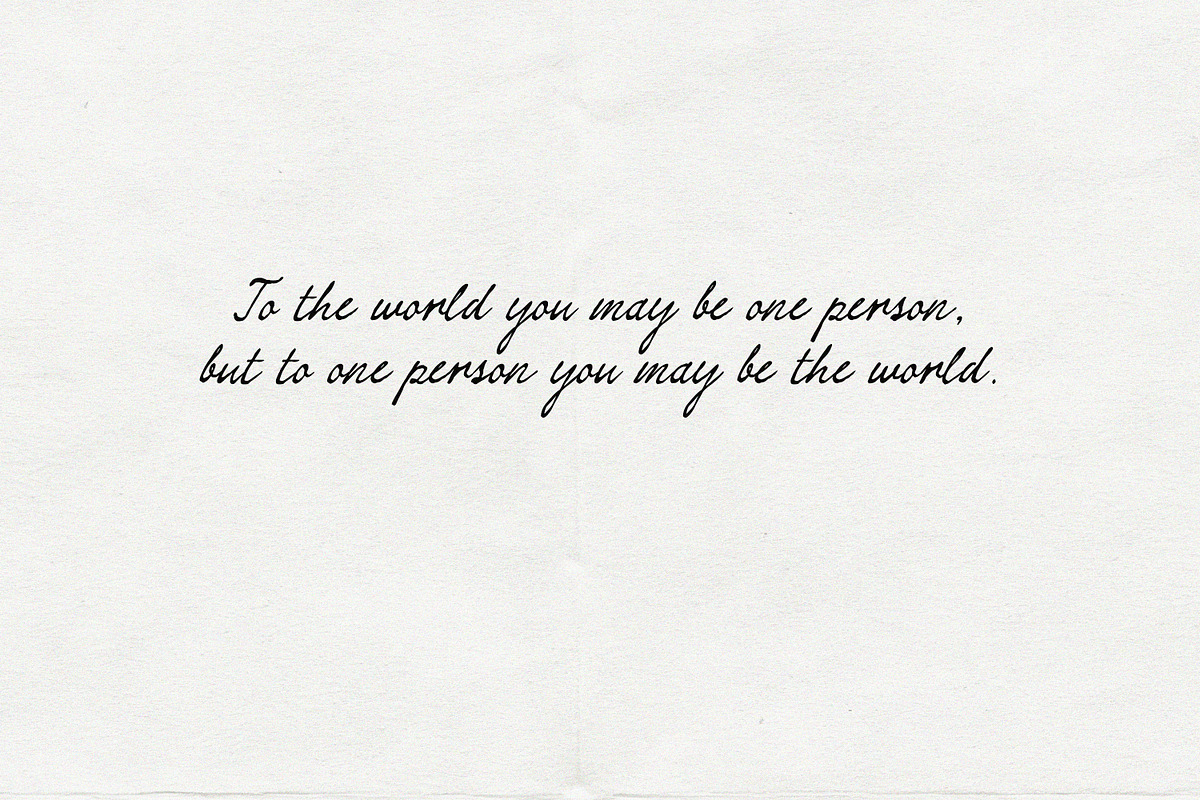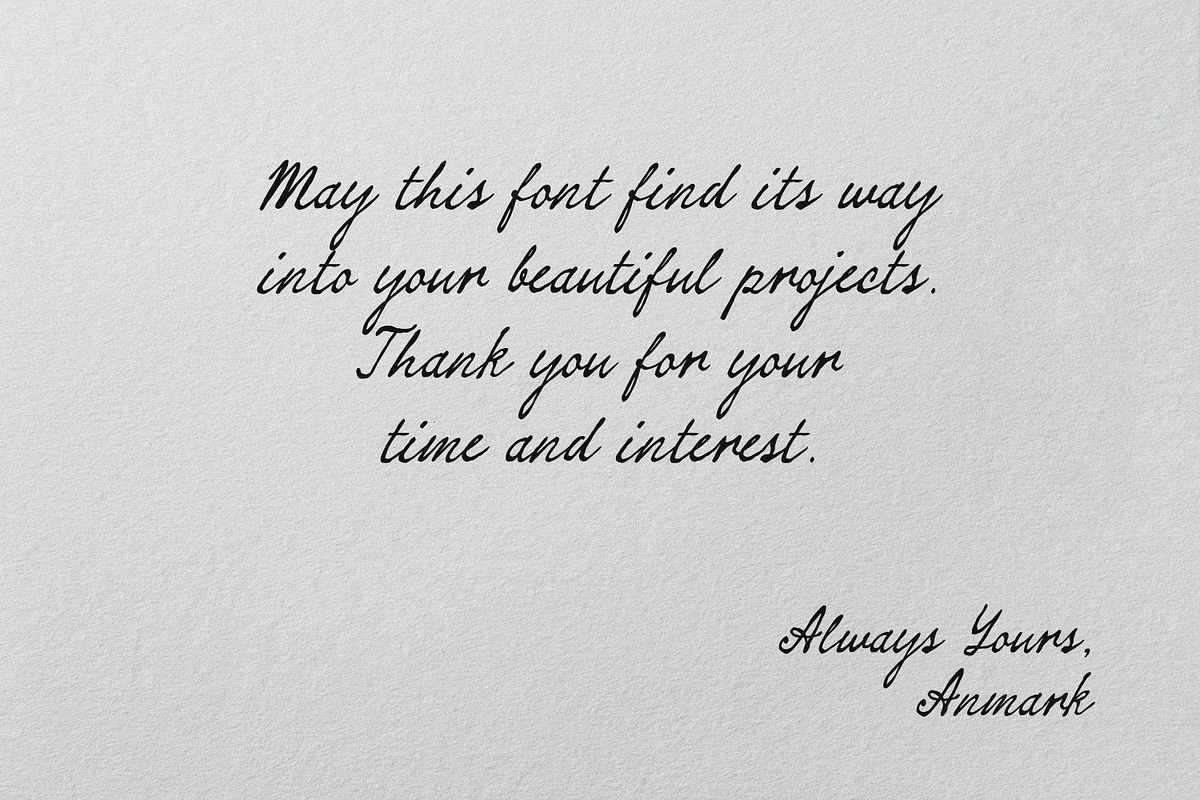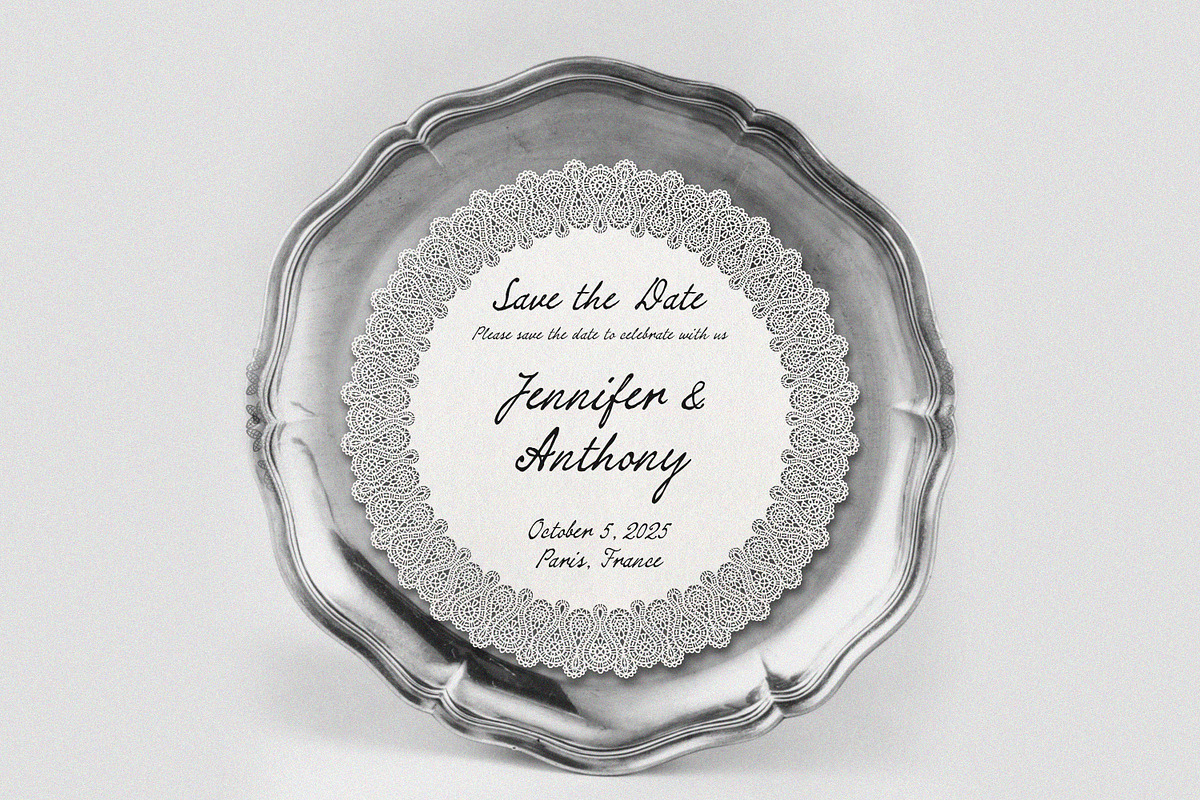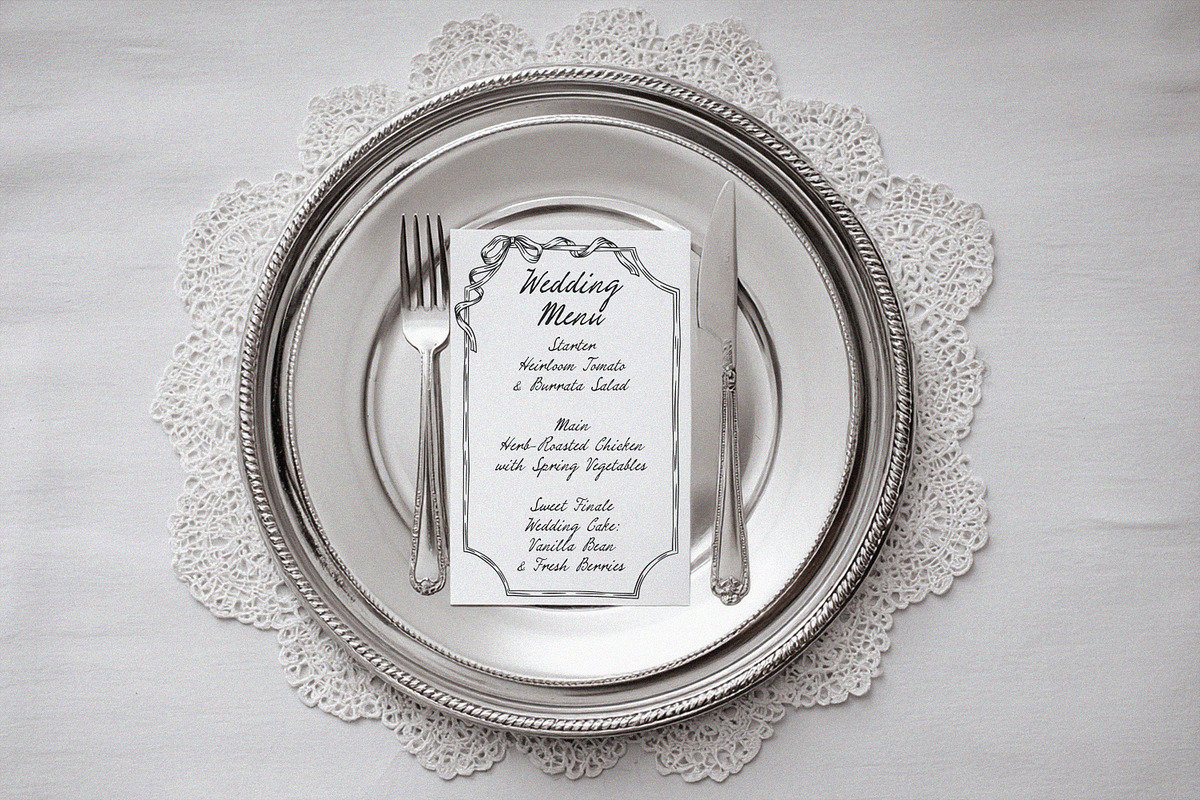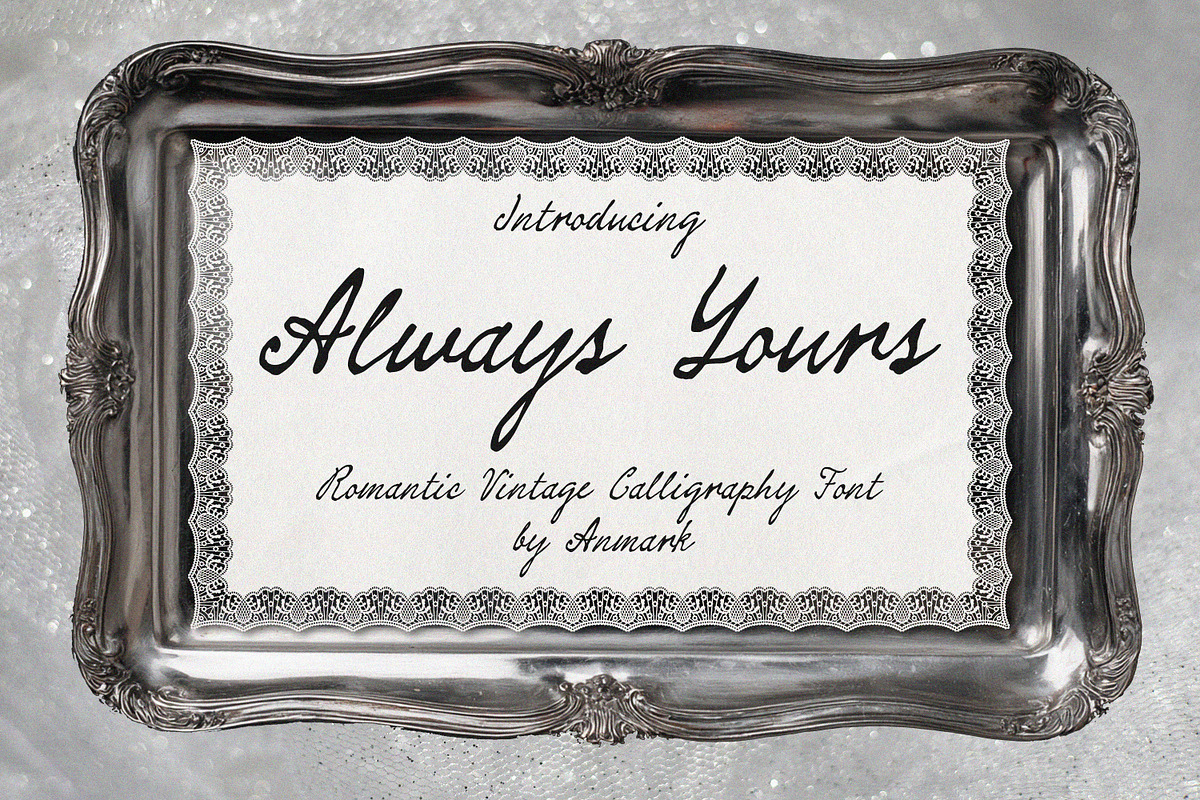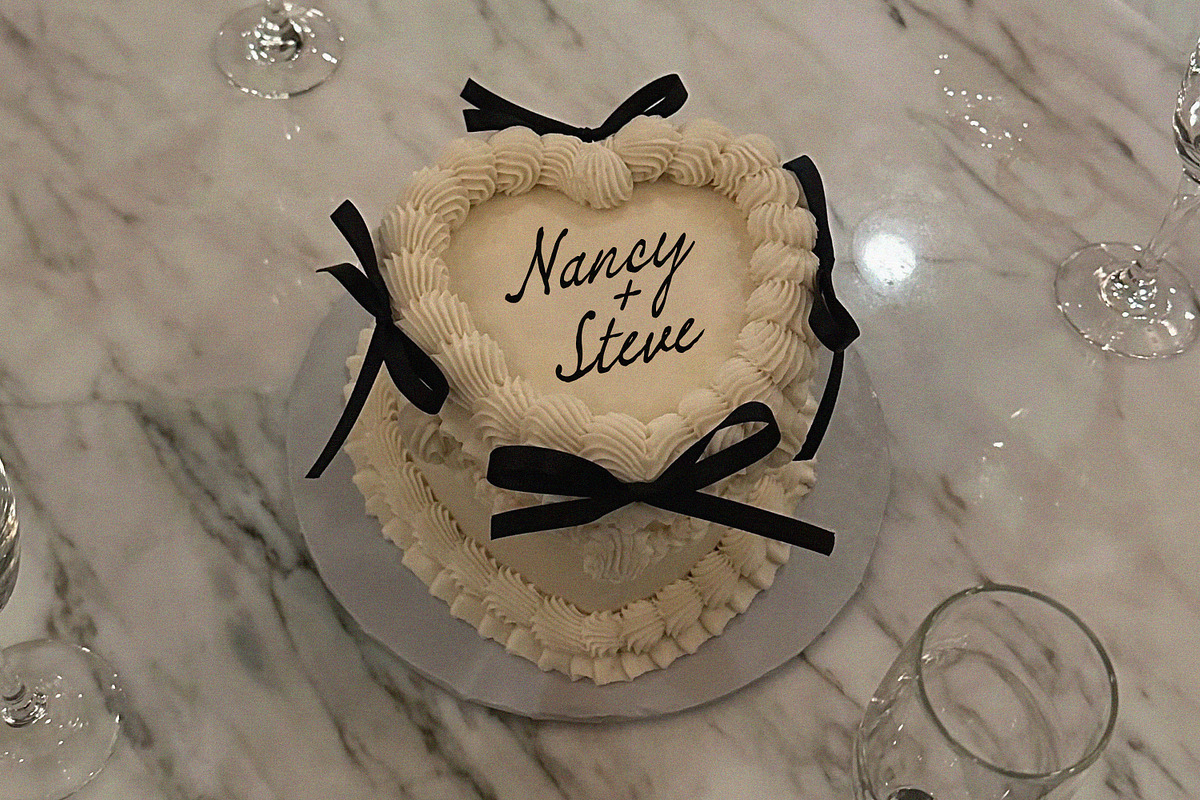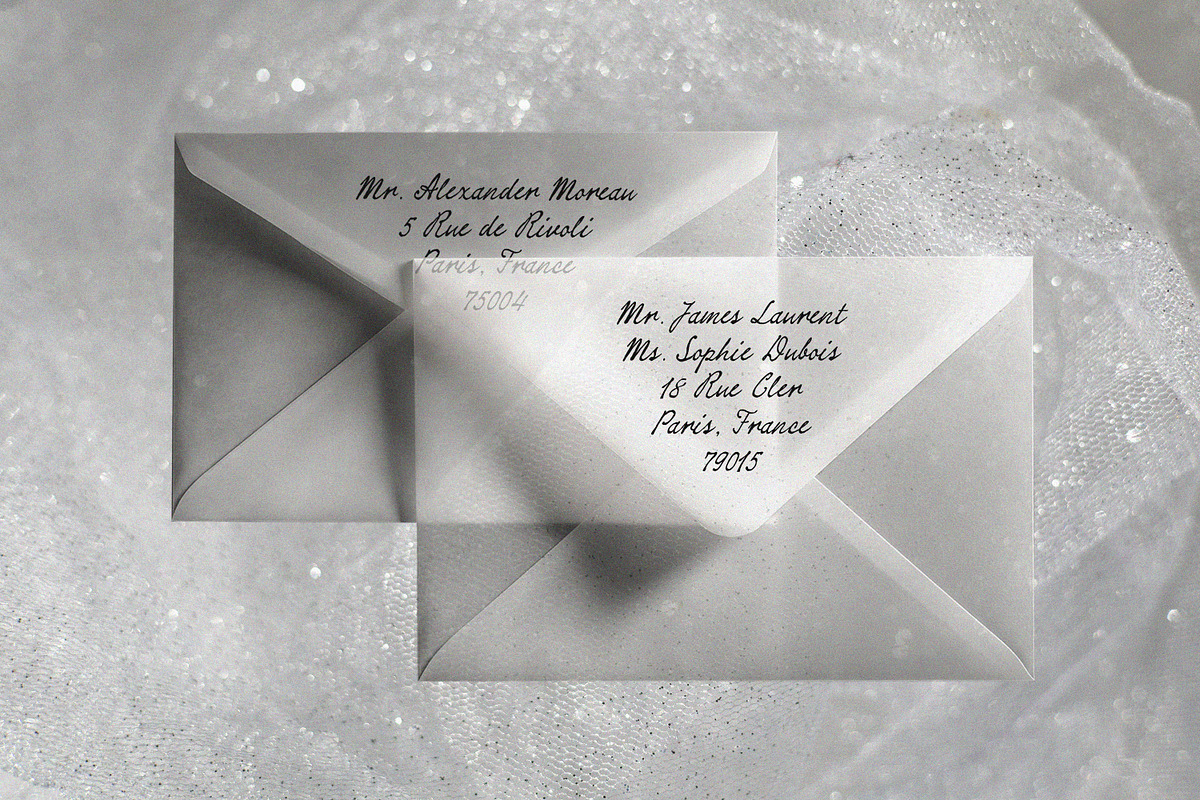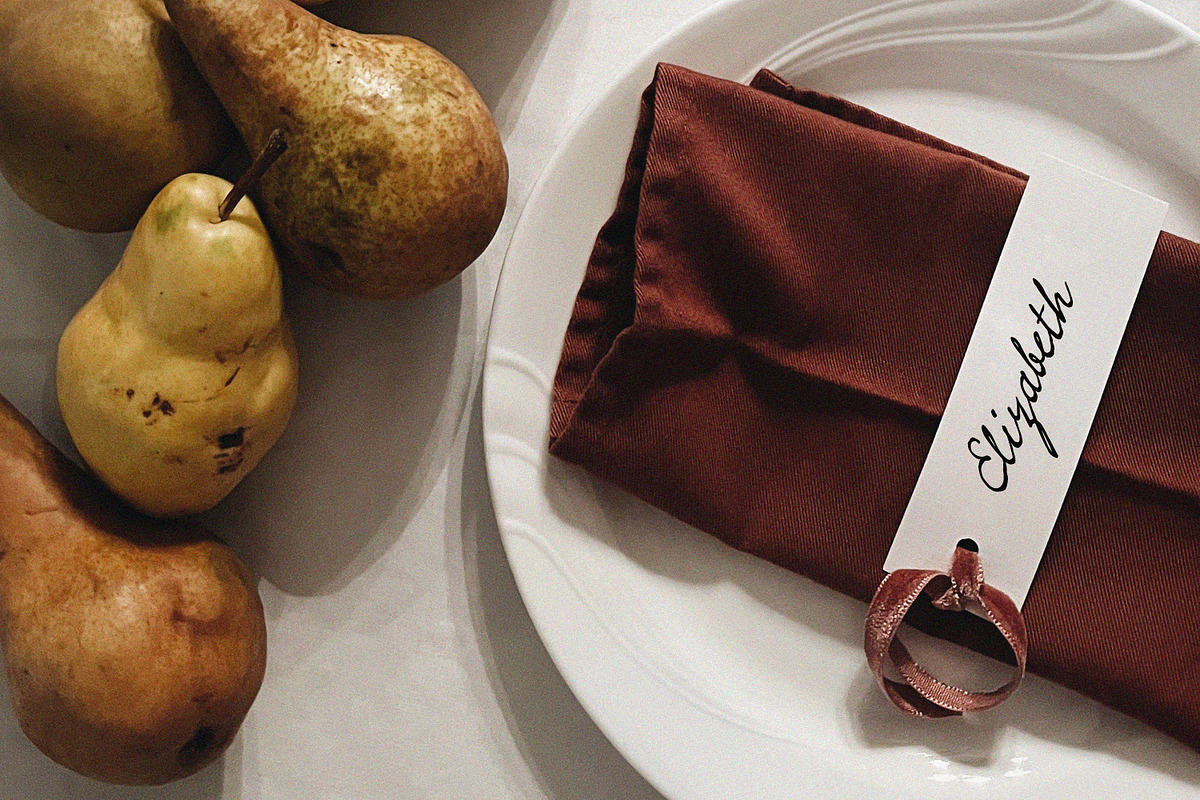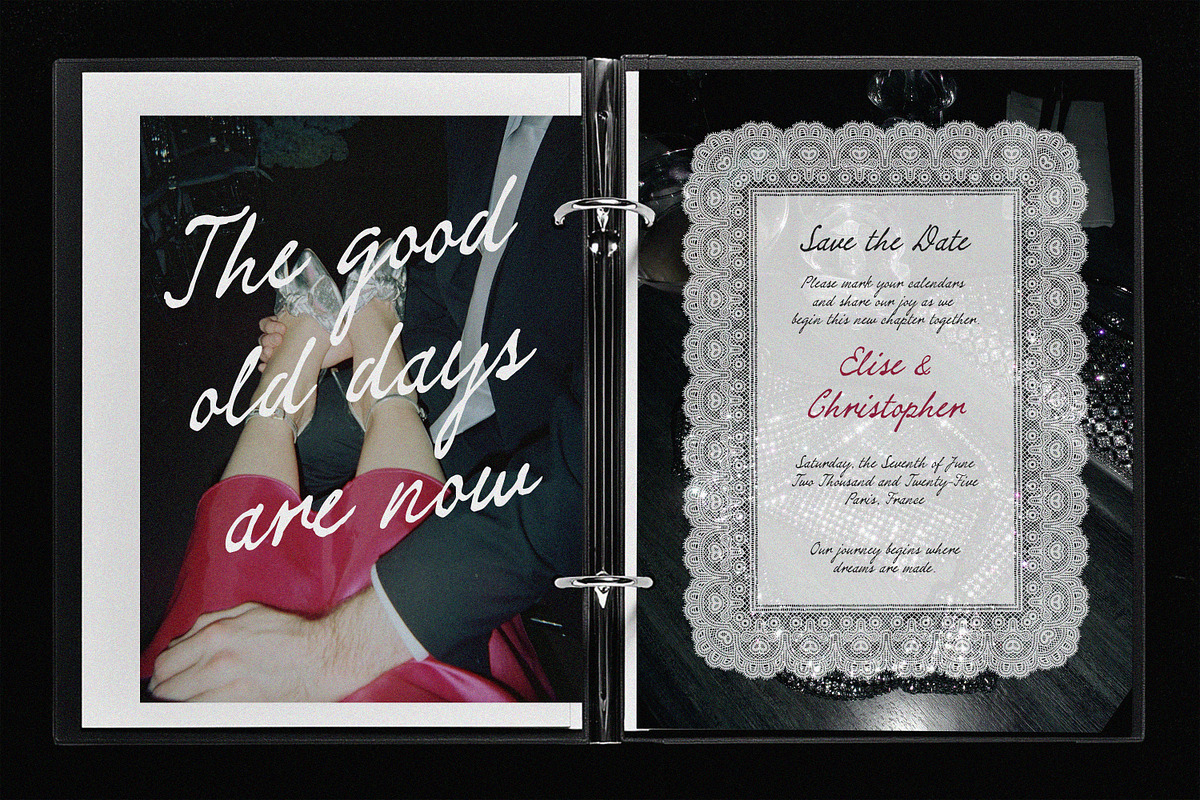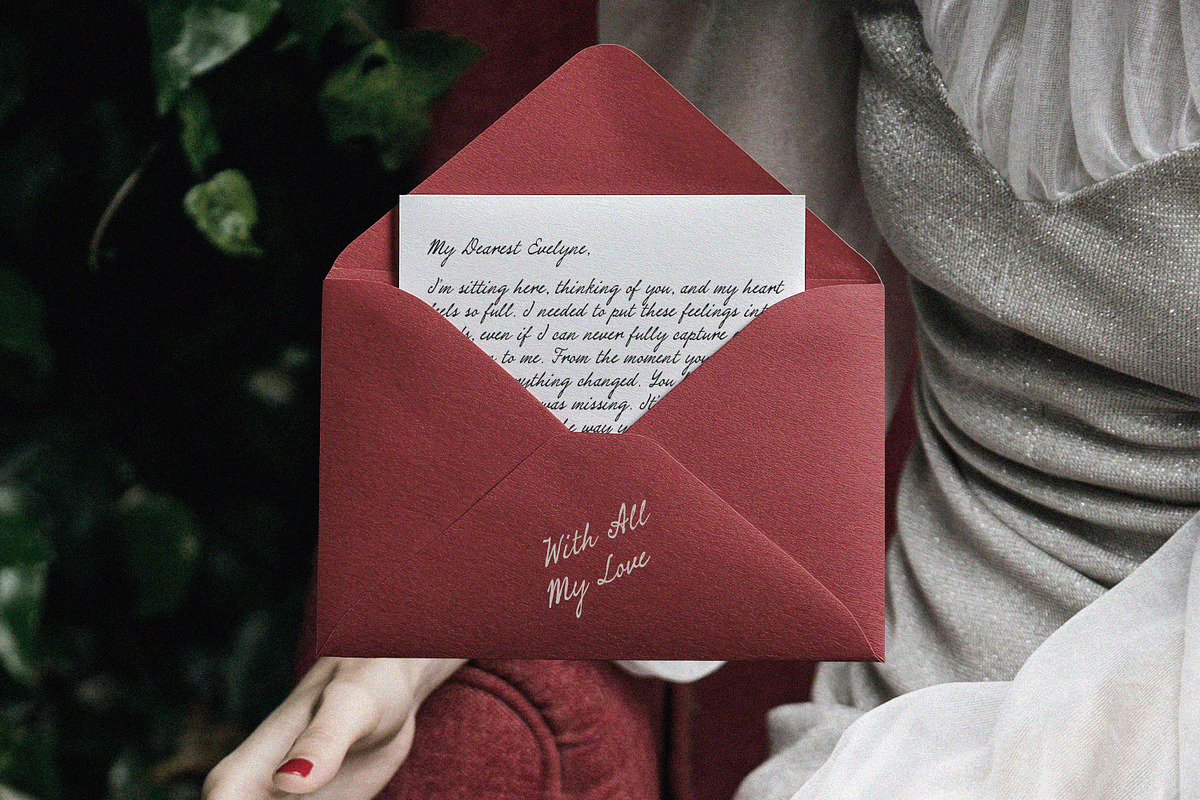
Always Yours Romantic Vintage Font
Always Yours - Romantic Vintage Wedding Font | Elegant Script | Love Invitations & Logos
Meet Always Yours - a beautifully crafted script font that captures the timeless romance of a bygone era. With its elegant, flowing strokes and delicate swashes, this font is the perfect embodiment of love and sophistication, designed to make your projects feel uniquely personal and cherished.
Inspired by classic love letters and vintage wedding invitations, "Always Yours" adds a touch of handcrafted elegance to any design. It’s incredibly versatile, perfect for creating a cohesive and stunning brand identity from the first "Save the Date" to the last thank you card.
IDEAL FOR:
- Wedding Invitations & Stationery (Save the Dates, Menus, Programs)
- Love Quotes & Logotypes
- Branding for Boutiques, Photographers & Florists
- Product Packaging & Labels
- Social Media Graphics & Quotes
- Home Decors & Signage